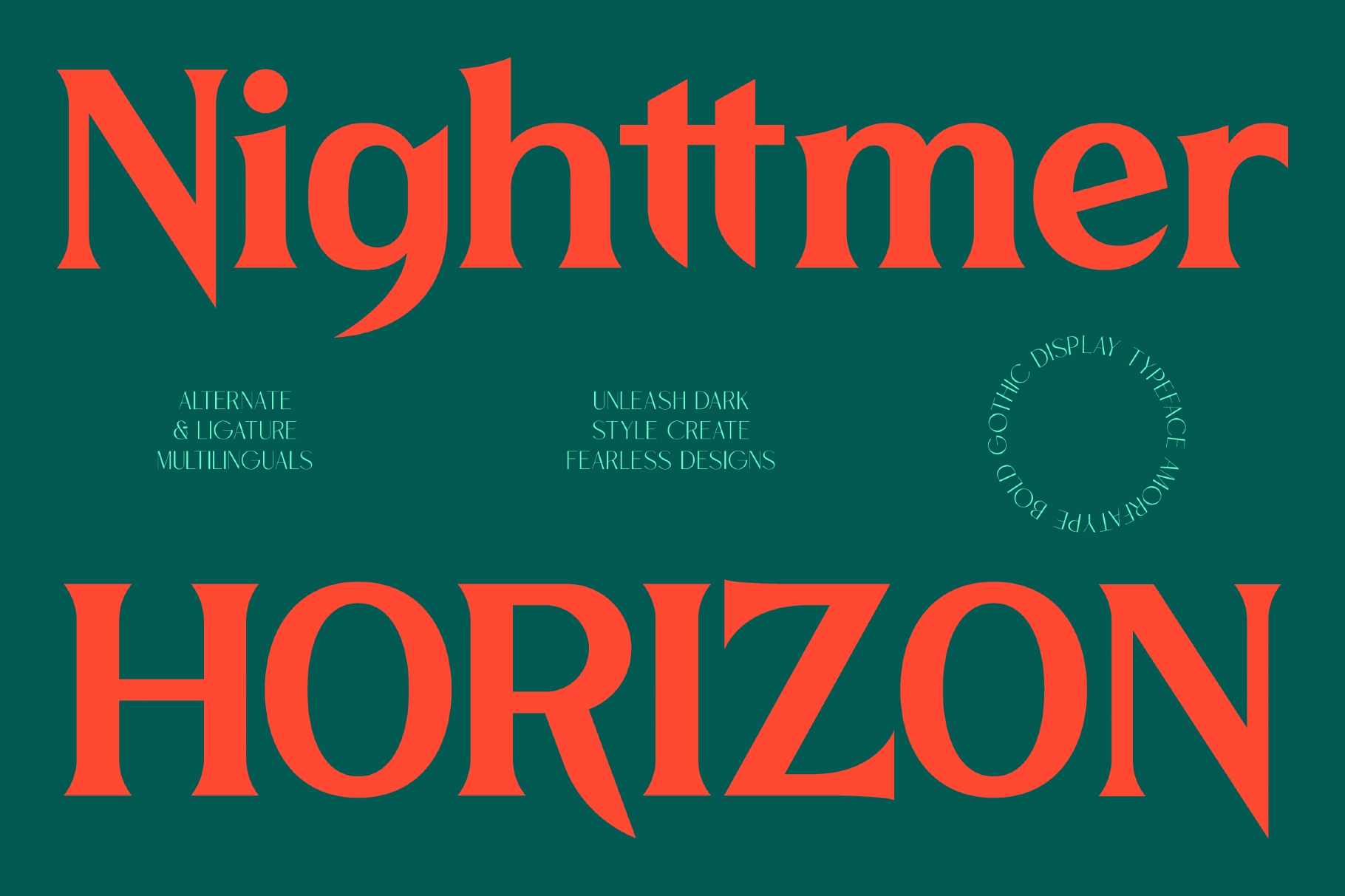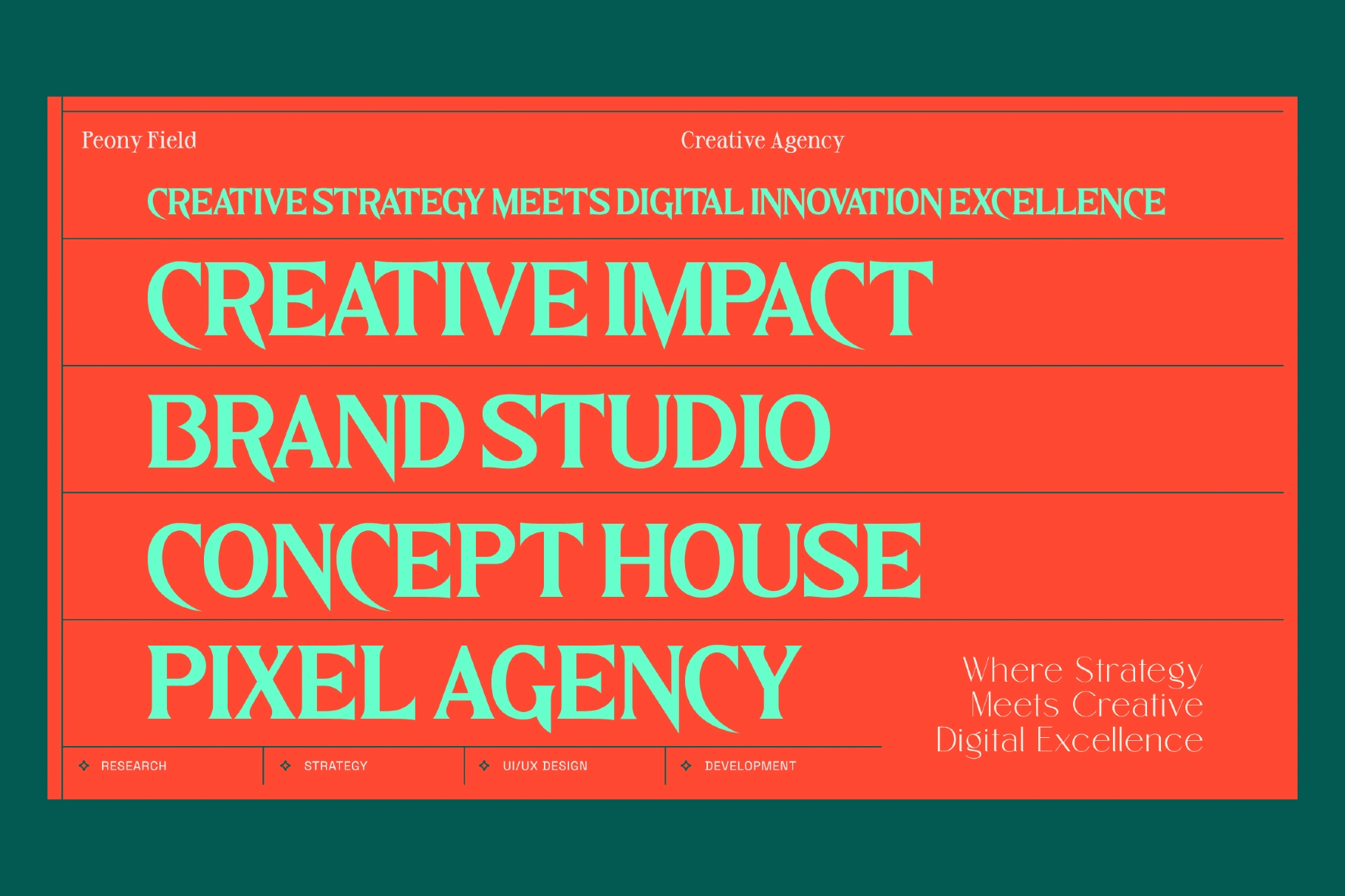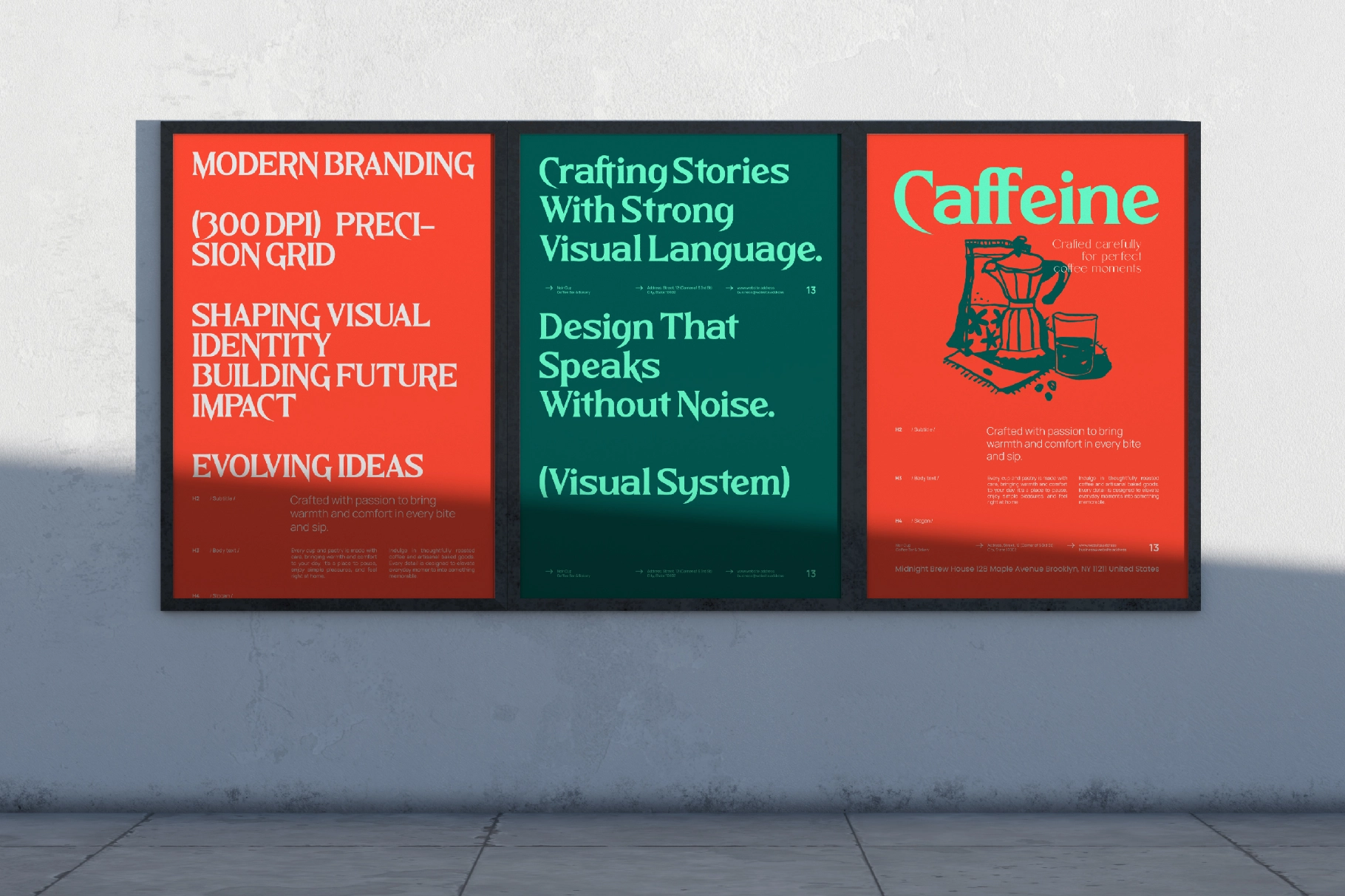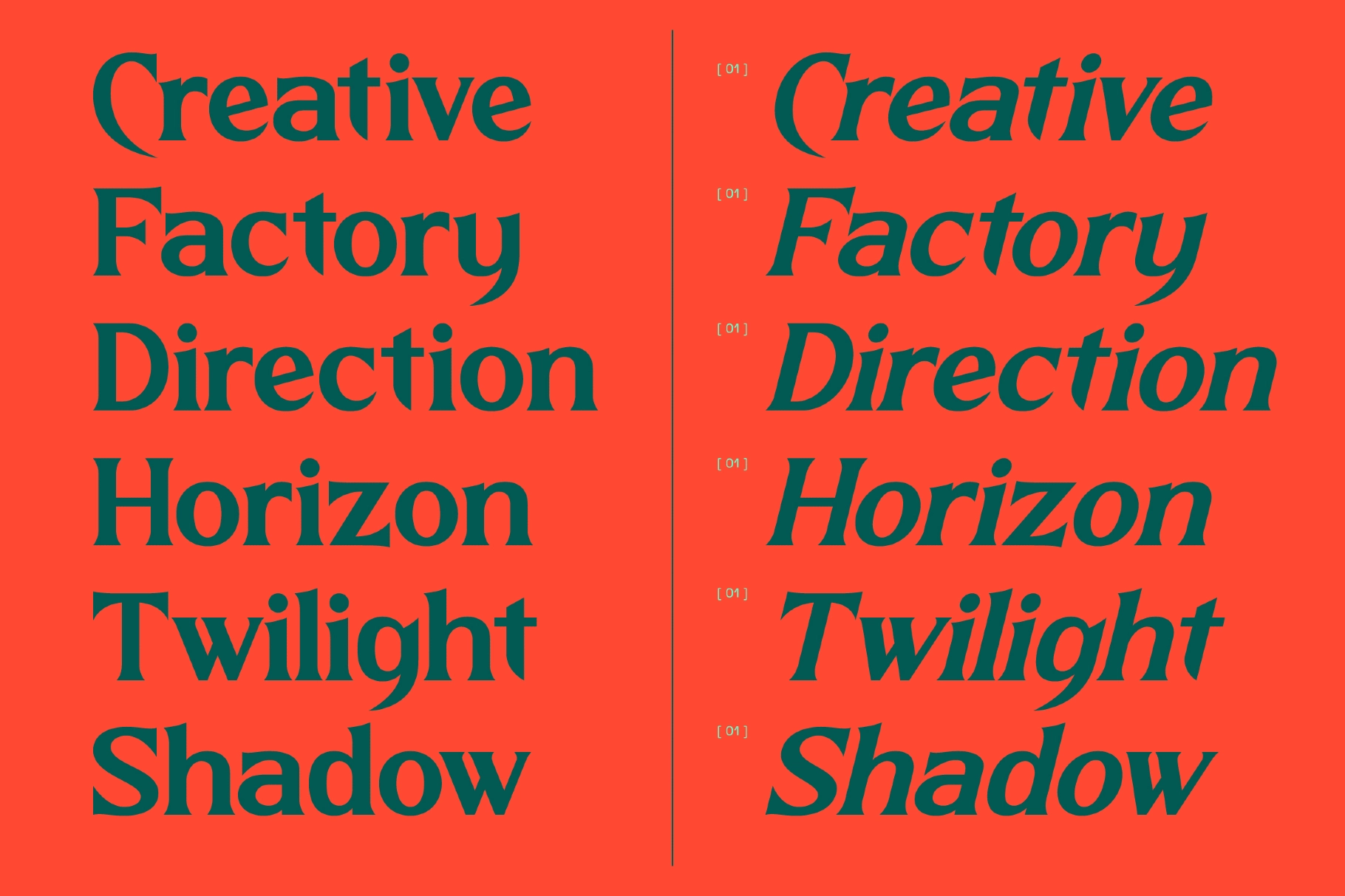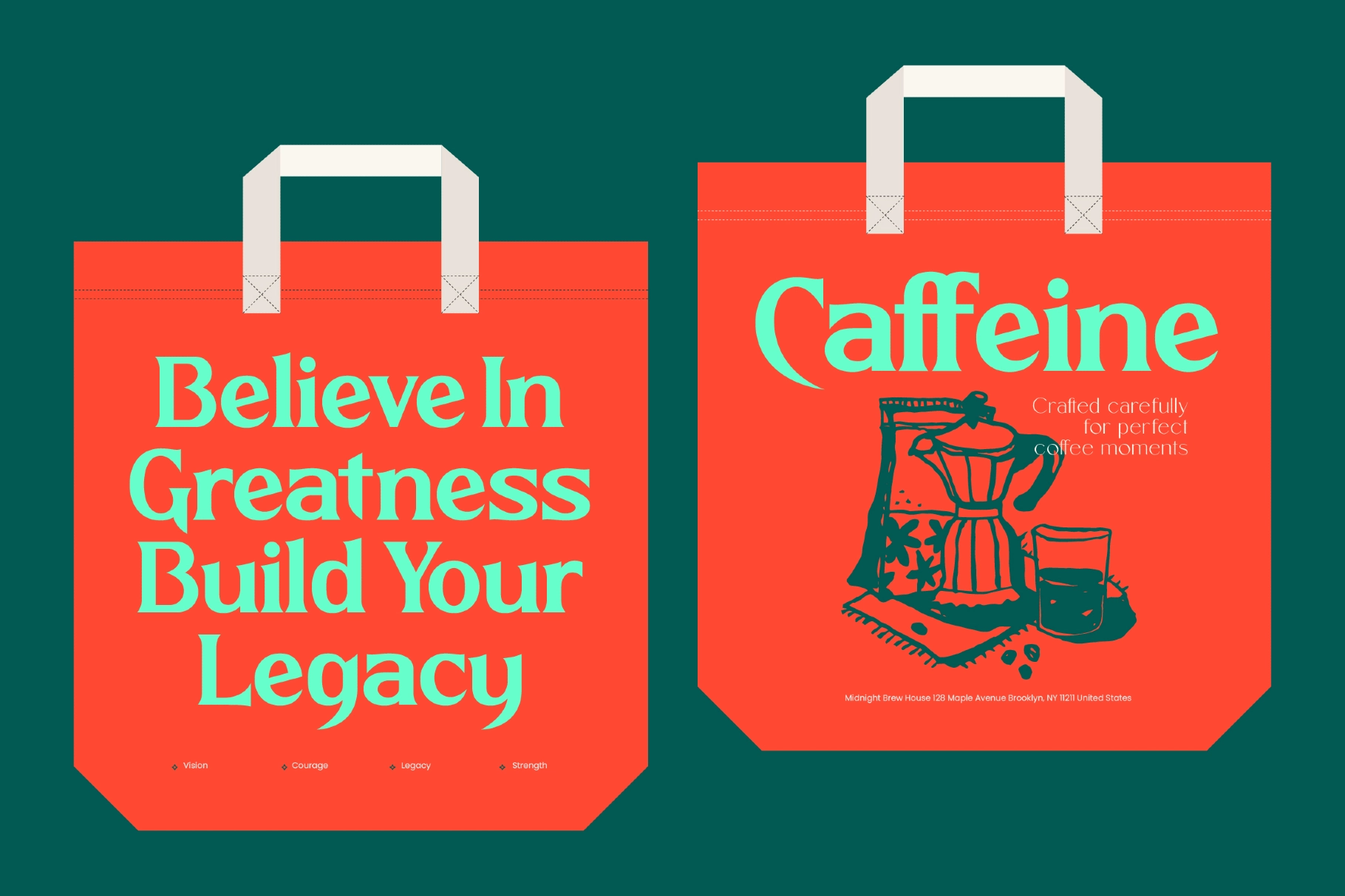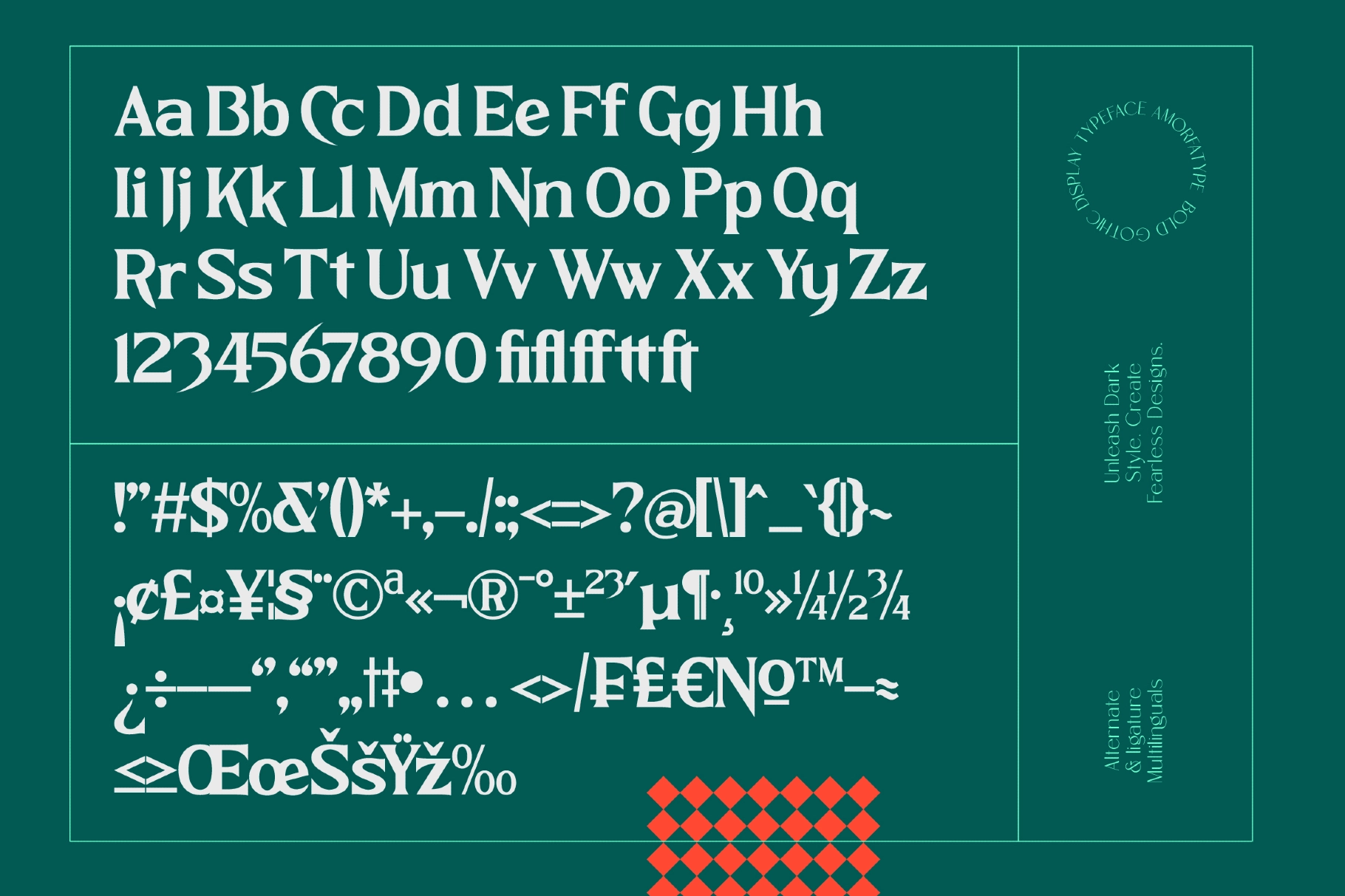
Nighttmer Horizon - Bold Gothic Display Font
This gothic display font is sharp, commanding, and cut for large-scale typography. High-contrast strokes, angular serif details, and strong vertical forms give it a dramatic editorial voice — the kind that makes a poster look like it has a legal department and a secret society.
Nighttmer Horizon works for studio branding, magazine covers, fashion campaigns, luxury packaging, advertising headlines, poster layouts, agency identities, coffee shop graphics, merchandise prints, album artwork, website headers, and statement logos. The bold shapes carry serious visual weight, while the ligatures add custom rhythm for titles, wordmarks, and layouts that need presence without decorative clutter.
- Symbols
- Ligatures